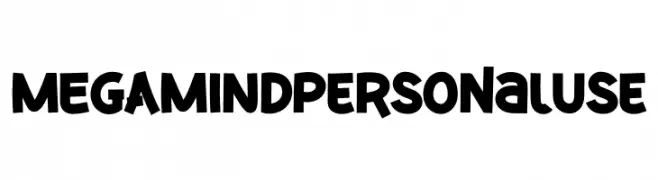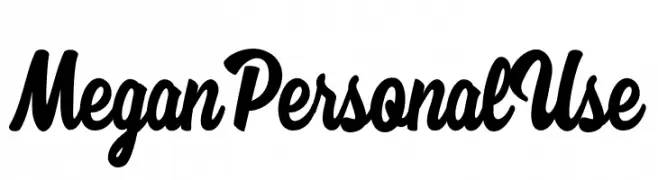
A bold, three-dimensional font with strong shadow effects and a geometric design.
A bold, impactful font with strong strokes and high contrast.
A decorative font with intricate cloud-like embellishments on each character.
A bold, playful font with a cartoonish and dynamic style.
A bold, cursive script font with a modern, handwritten style.